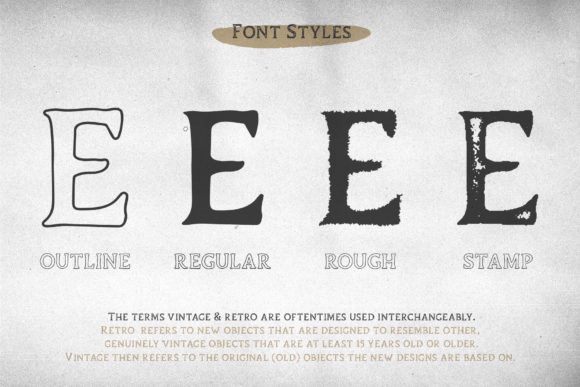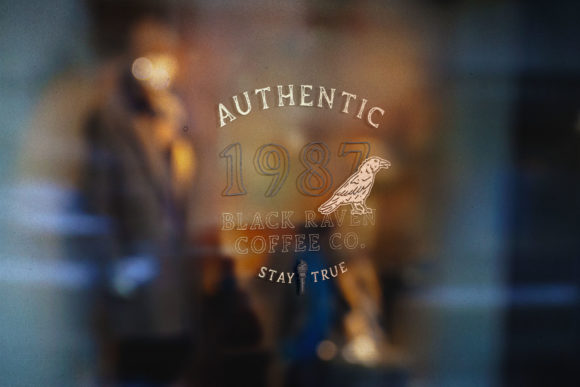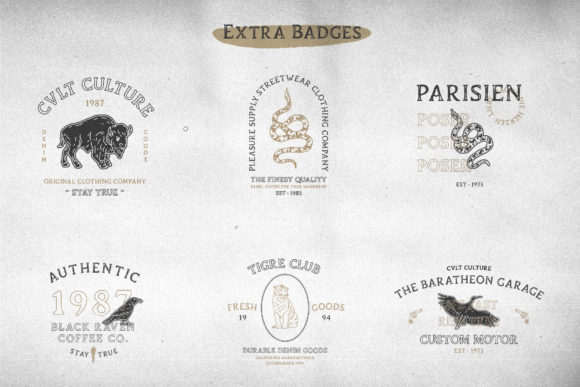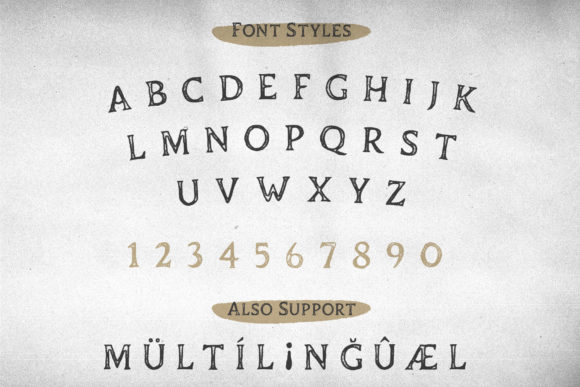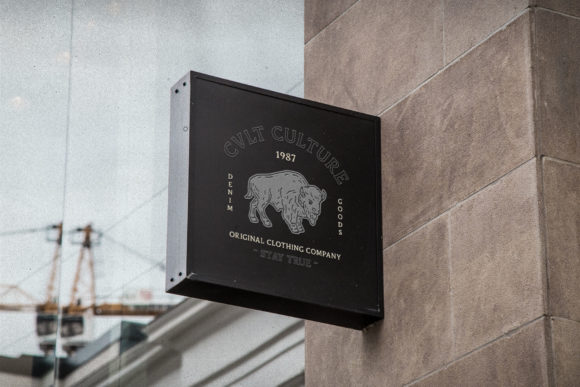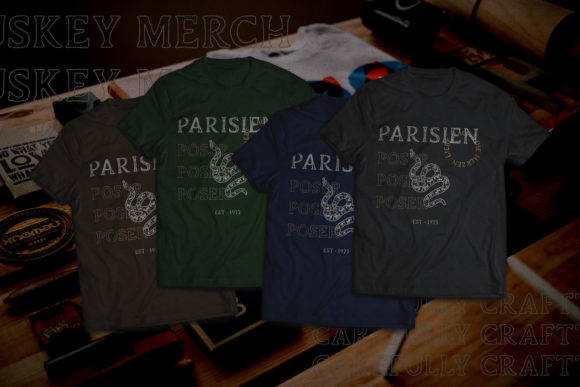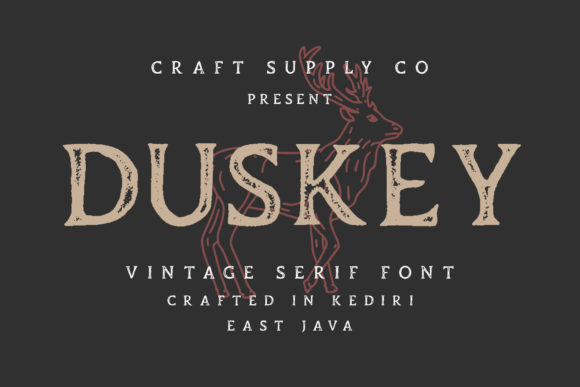
Duskey Font: Elevate Your Design with a Timeless Classic
Are you on the hunt for a font that exudes a sense of rugged sophistication and classic charm? Look no further than the Duskey Font, a rough and cool serif font that’s sure to make your design projects stand out from the crowd. With its unique blend of vintage flair and modern edge, Duskey is the perfect choice for designers and crafters looking to add a touch of elegance and personality to their work.
The Characteristics of Duskey Font
So, what sets Duskey apart from other fonts on the market? For starters, its rough, distressed texture gives it a one-of-a-kind look that’s both nostalgic and on-trend. The serif details add a level of sophistication and refinement, making it perfect for use in a variety of design applications, from logos and branding to packaging and advertising.
But Duskey’s appeal goes beyond its aesthetics. This versatile font is also incredibly easy to use, with a range of applications that make it suitable for both digital and print projects. Whether you’re designing a website, creating a social media graphic, or crafting a flyer or brochure, Duskey is the perfect choice for adding a touch of classic cool to your work.
Why Designers and Crafters Love Duskey
So, why have designers and crafters fallen in love with Duskey? For one, its unique blend of rough and refined elements makes it a standout in any design project. But it’s not just about looks – Duskey’s versatility and ease of use make it a joy to work with, even for those who are new to design.
Here are just a few reasons why Duskey has become a go-to font for designers and crafters:
- Unique aesthetic: Duskey’s rough, distressed texture and classic serif details make it a one-of-a-kind font that’s sure to turn heads.
- Versatility: From logos and branding to packaging and advertising, Duskey is the perfect choice for a wide range of design applications.
- Easy to use: With its clean lines and intuitive design, Duskey is easy to use, even for those who are new to design.
- Timeless appeal: Unlike trendy fonts that quickly go out of style, Duskey’s classic charm ensures it will remain a timeless choice for years to come.
How to Use Duskey in Your Design Projects
Ready to give Duskey a try? Here are a few tips for incorporating this amazing font into your design projects:
- Pair it with a sans-serif: For a striking contrast, pair Duskey with a clean, modern sans-serif font.
- Use it for headlines: Duskey’s bold, attention-grabbing design makes it perfect for use in headlines and titles.
- Add some texture: Experiment with adding texture to your Duskey font for an extra layer of depth and interest.
- Experiment with colors: From bold and bright to muted and pastel, Duskey looks great in a wide range of colors.
In conclusion, Duskey Font is a rough and cool serif font with a classic feel that’s sure to elevate your design projects to the next level. With its unique blend of vintage flair and modern edge, Duskey is the perfect choice for designers and crafters looking to add a touch of elegance and personality to their work. So why wait? Give Duskey a try today and see the difference it can make!